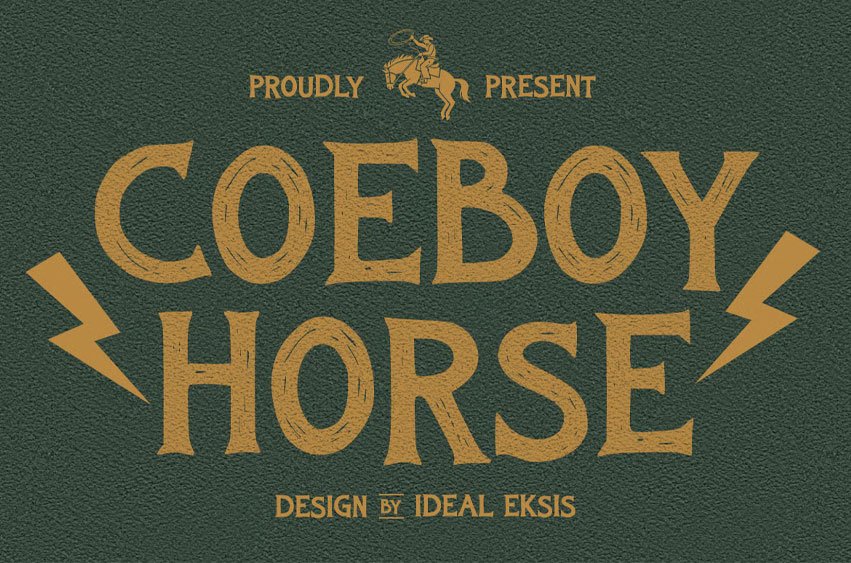
Coeboy Horse Font is a rugged and authentic display typeface that captures the spirit of the Wild West and vintage Americana. Featuring bold, with distinctive slab serifs and a beautifully distressed texture, this font exudes a handcrafted, weathered charm.
Perfect for branding projects, posters, packaging, and any creative work seeking a strong, adventurous, and nostalgic feel. Its robust presence makes it ideal for headlines, logos, and designs that demand attention and evoke a sense of heritage and frontier spirit.